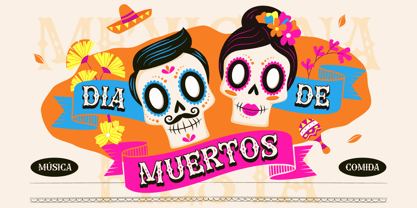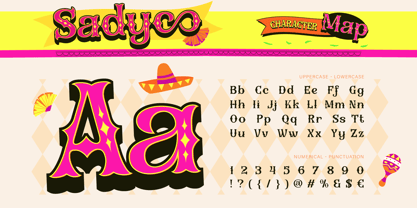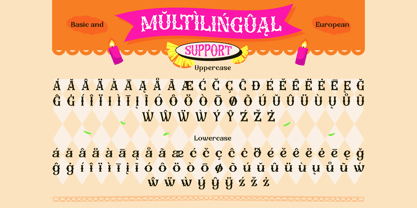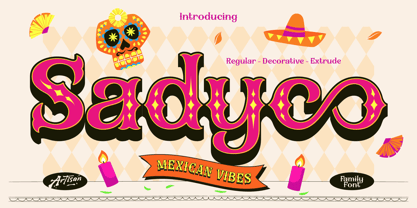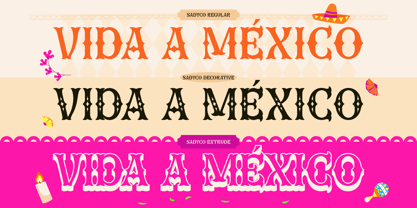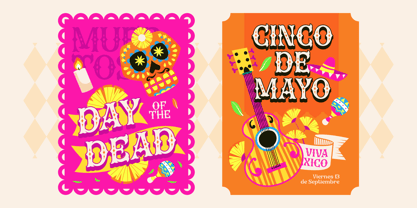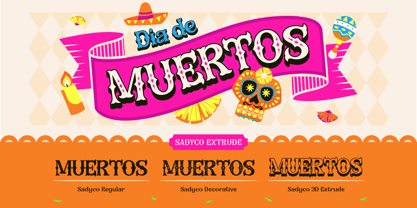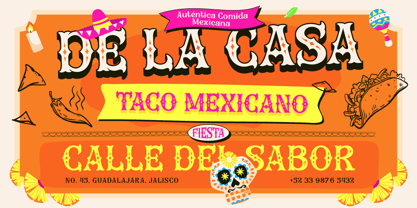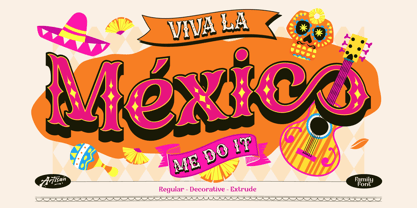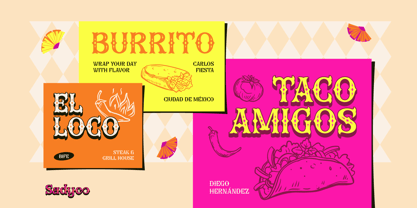
Sadyco
by Artisan Themes
The Sadyco Font Family was designed by Meidy Meichico and published by Artisan Themes. Sadyco contains 3 styles and family package options. More about this family
Say hello to Sadyco, a playful and bold display font inspired by the colorful Mexican vibes. This font is all about fun, celebration, and standing out! With its decorative and extrude style, Sadyco makes your text feel alive, like it’s ready for a fiesta. Perfect for posters, party invitations, food packaging, event branding, or anything that needs a happy and festive touch. Whether you use the regular, decorative, or 3D extrude style, Sadyco brings instant energy and personality to your design. If you’re looking for a font that makes people smile and instantly grabs attention, Sadyco is the one.
Designers: Meidy Meichico
Foundry: Artisan Themes